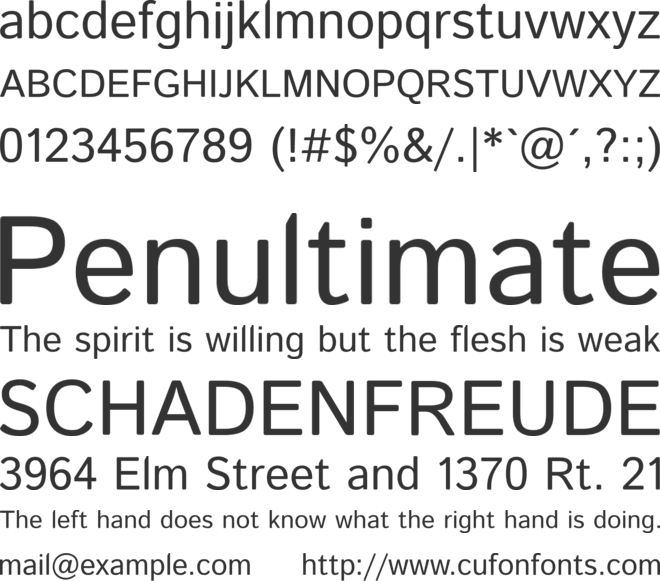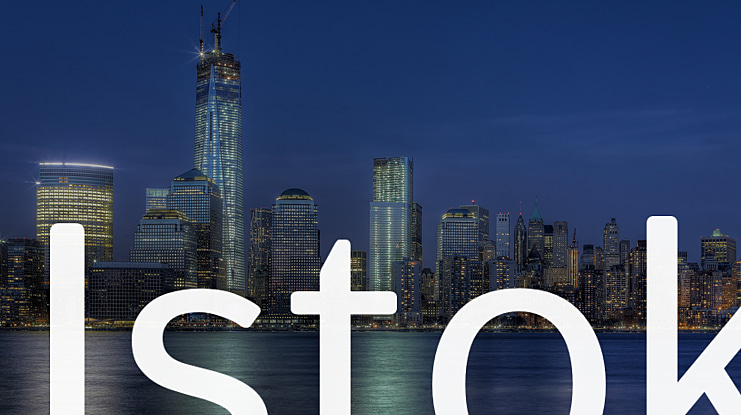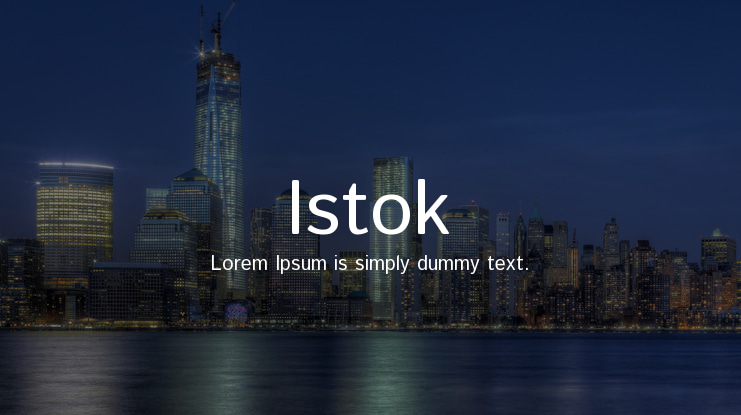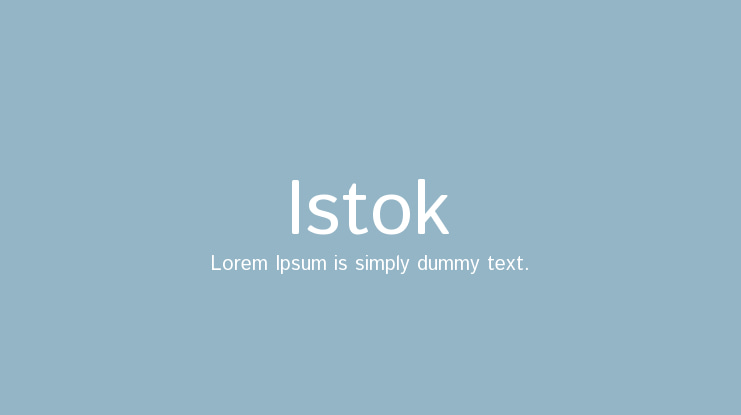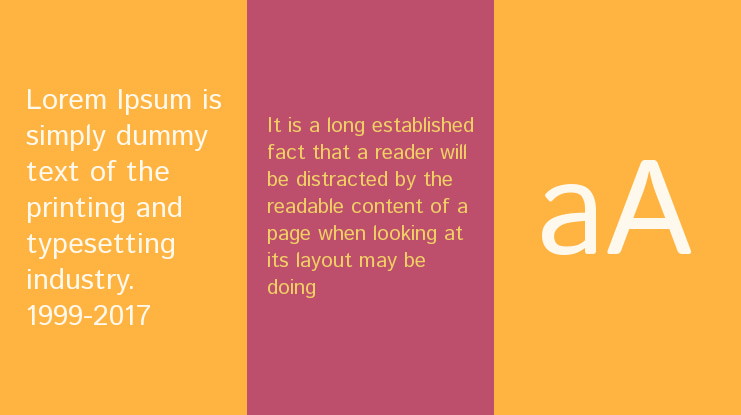
Istok Font Family
Istok Web is an original typeface, in development since 2008. At first some basic letters were based on specially modified METAFONT sources from the CM Bright font family from the TeX community. (METAFONT is very flexible technology.) But in fact Istok fonts are now very far from this origin. Contours of the font are designed in the freely distributable font editor, FontForge.
Most glyphs are manually hinted with the aim to be rendered on LCD displays. I used xgridfit as a tool for programming truetype instructions. Less frequently utilized symbols have automatic instructions produced by FontForge autohinting, until manual hinting can be done. Manual and automatic instructions are intended to look homogeneous.